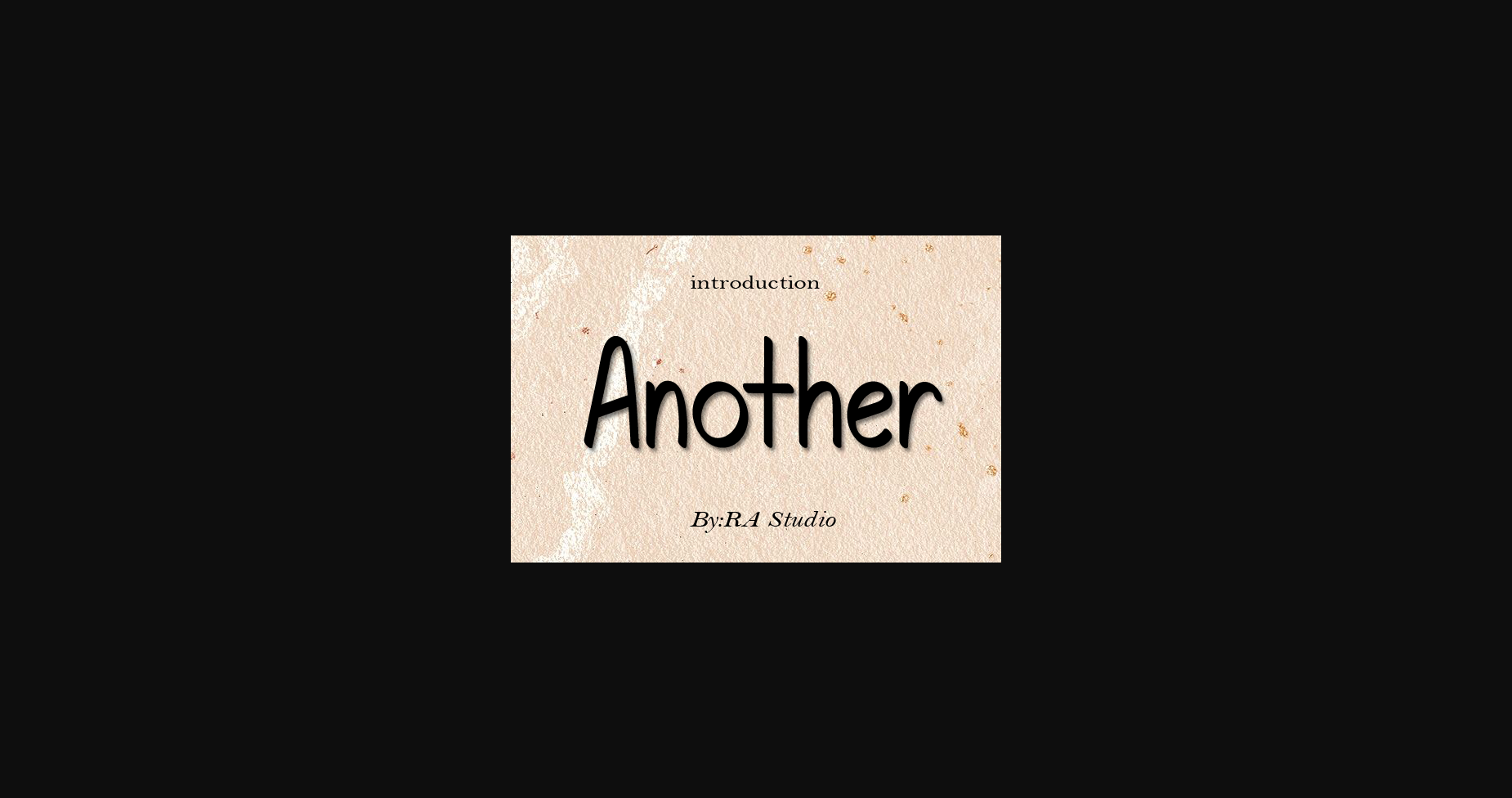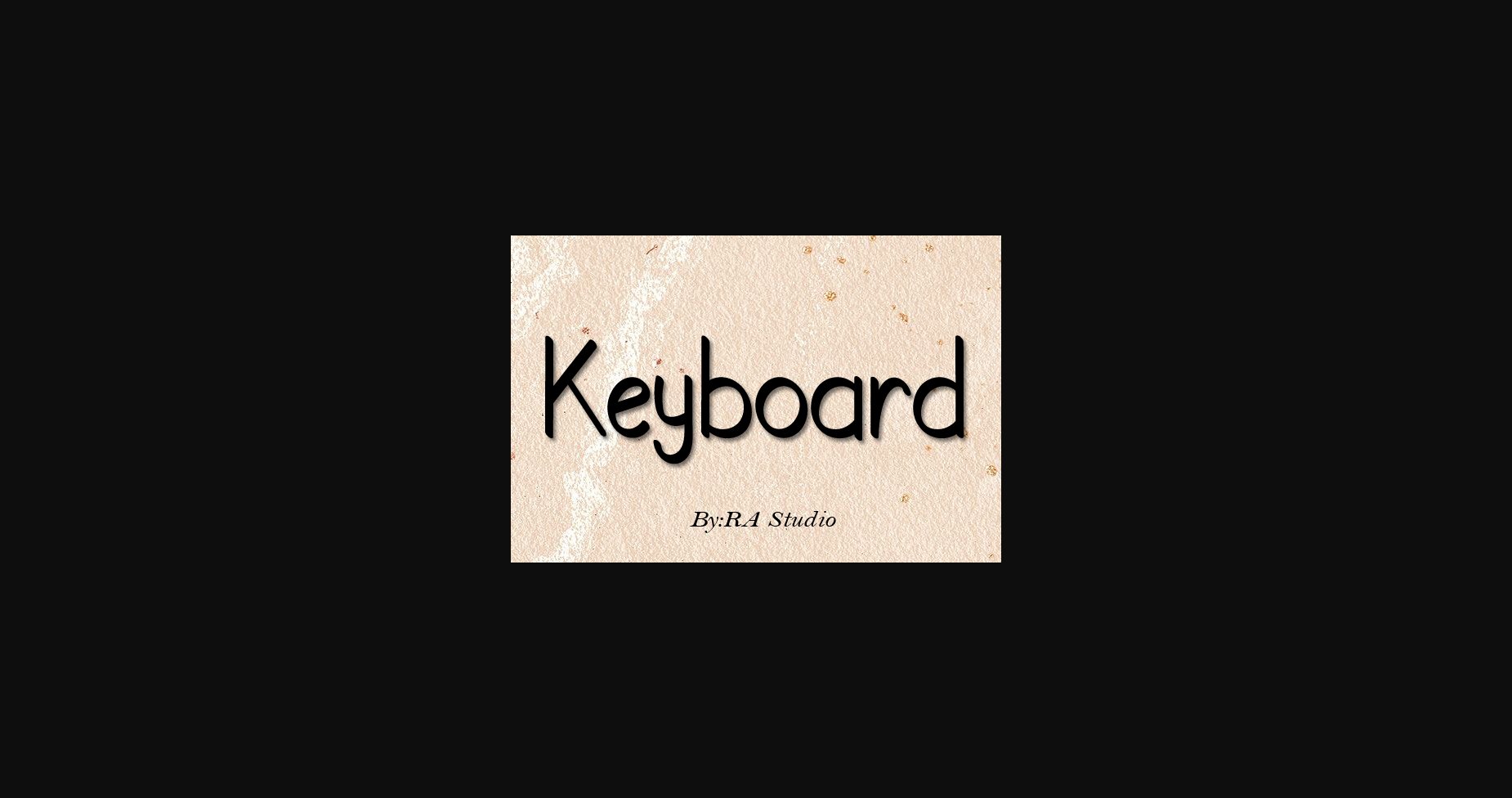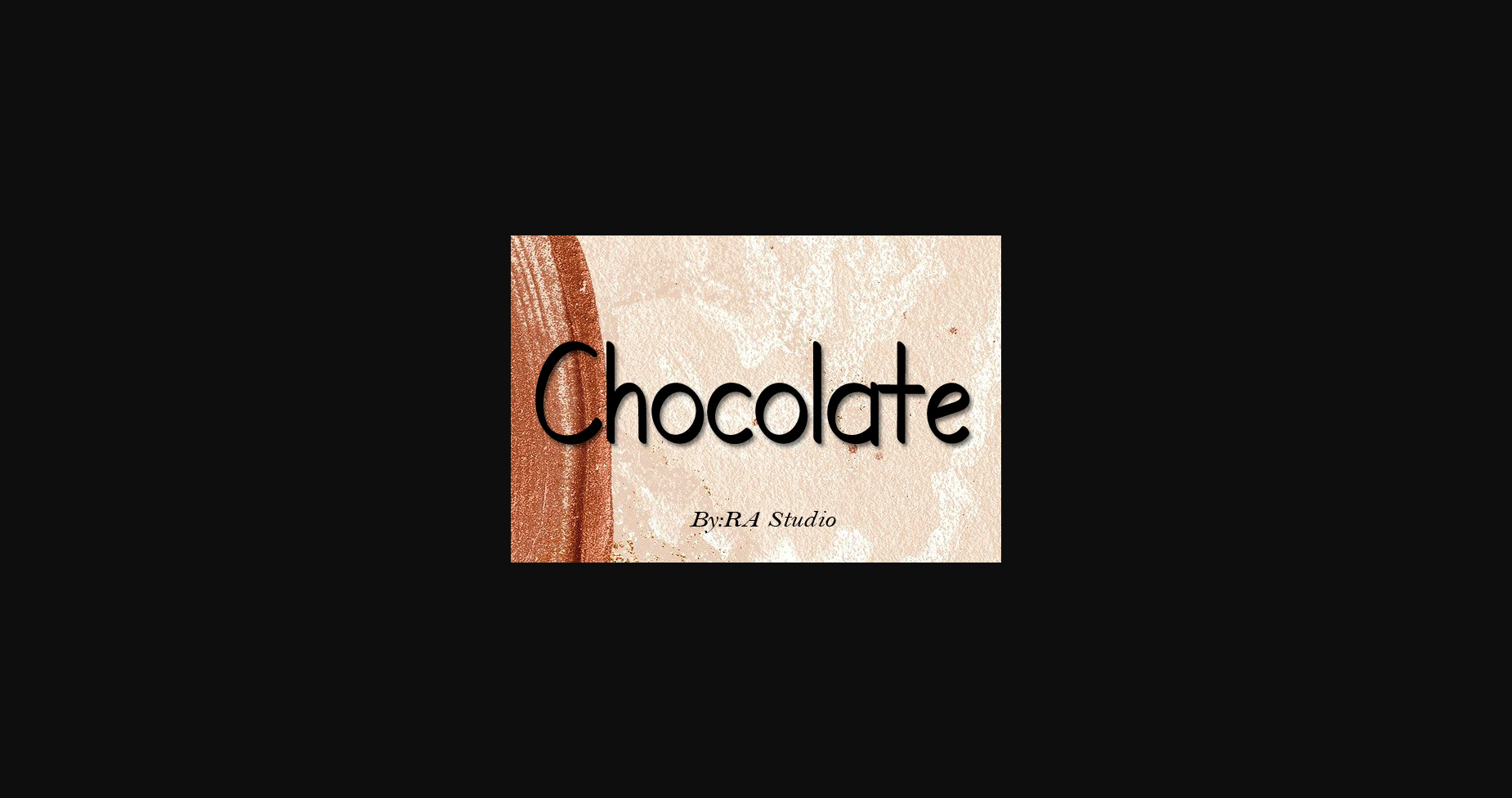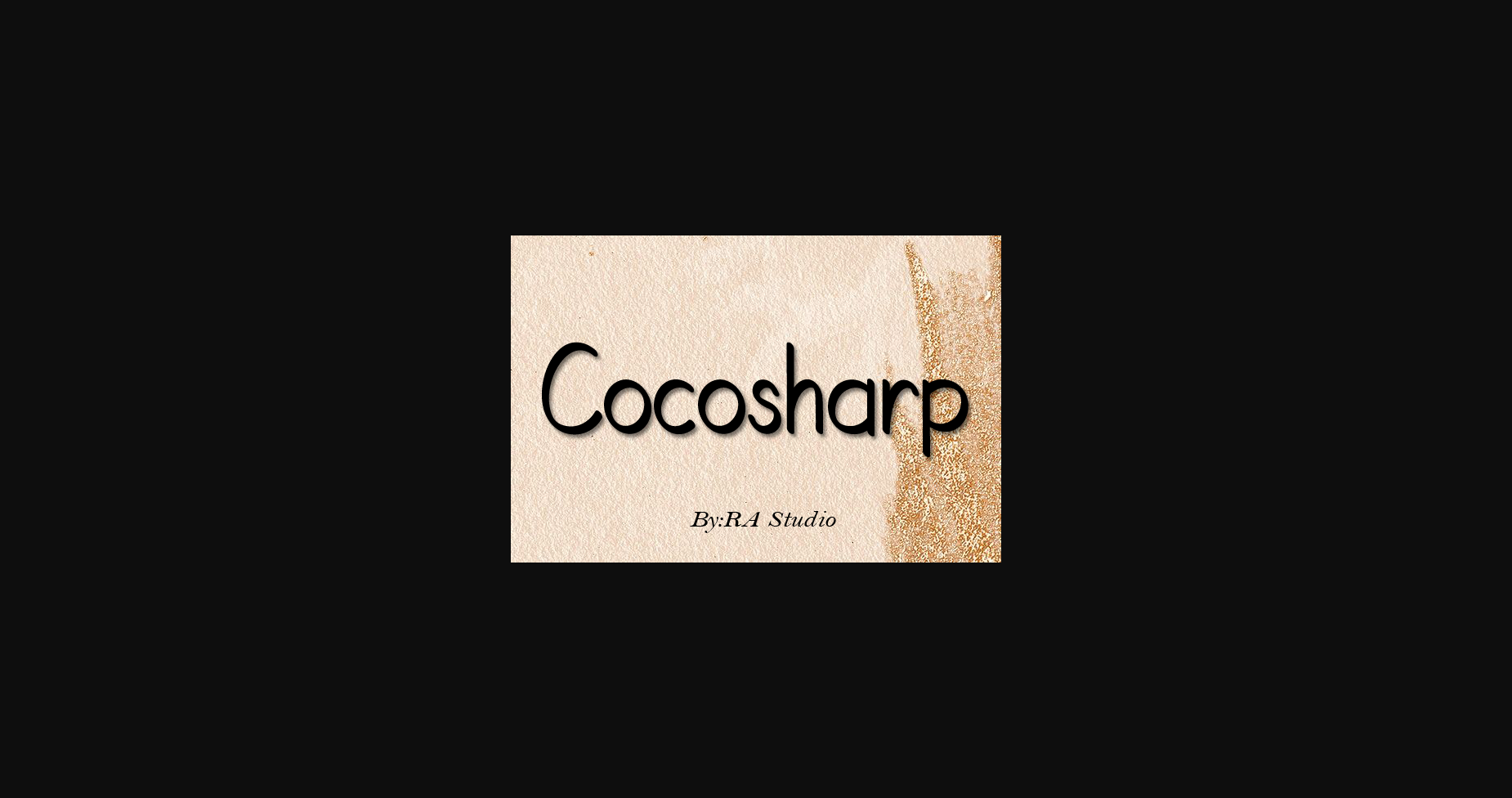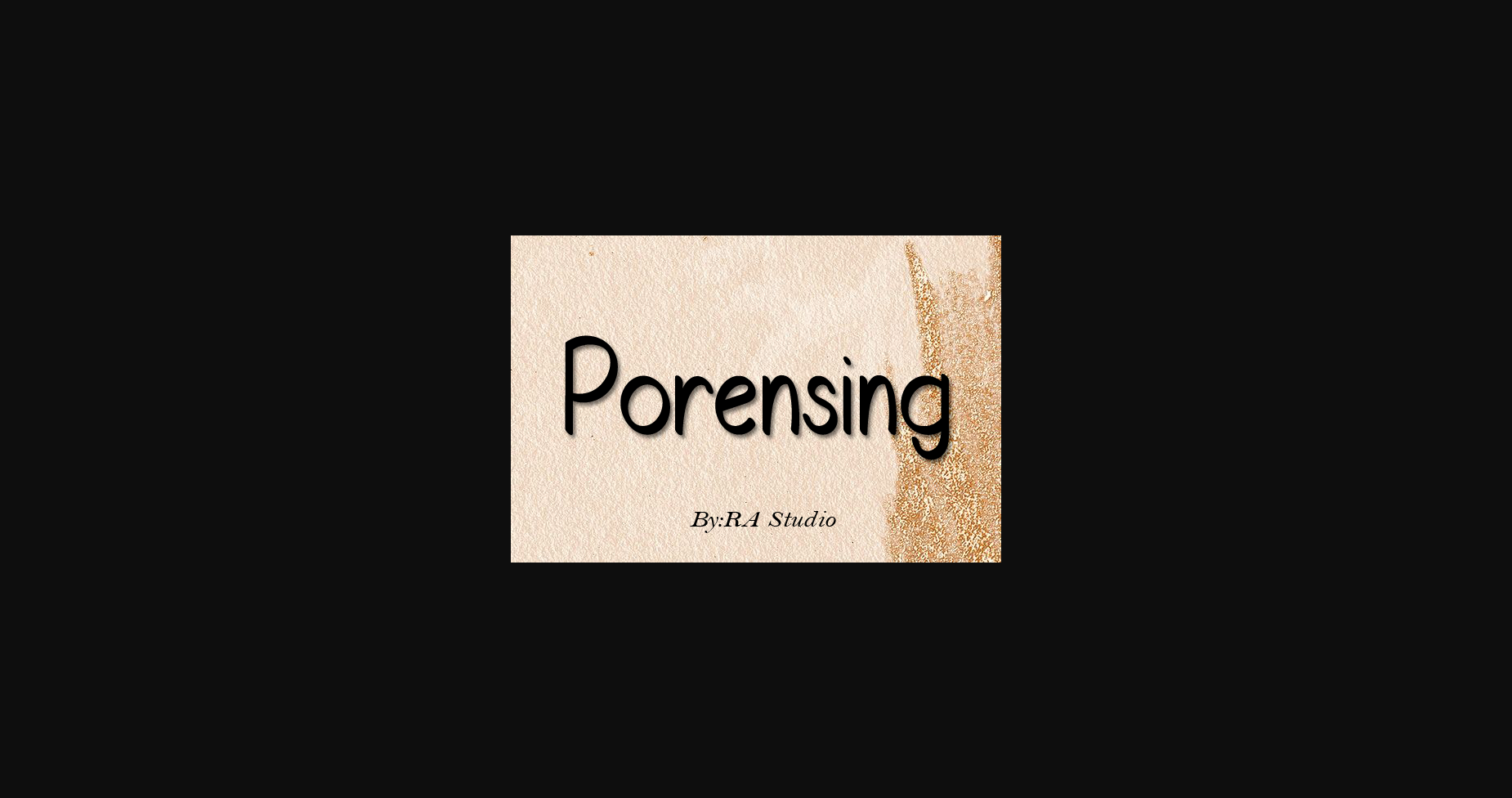
Another is a beautiful and clean sans serif font. It has a classy, elegant and modern look that can be used for logos, branding, invitations, stationery, wedding designs, social media posts, and much more!